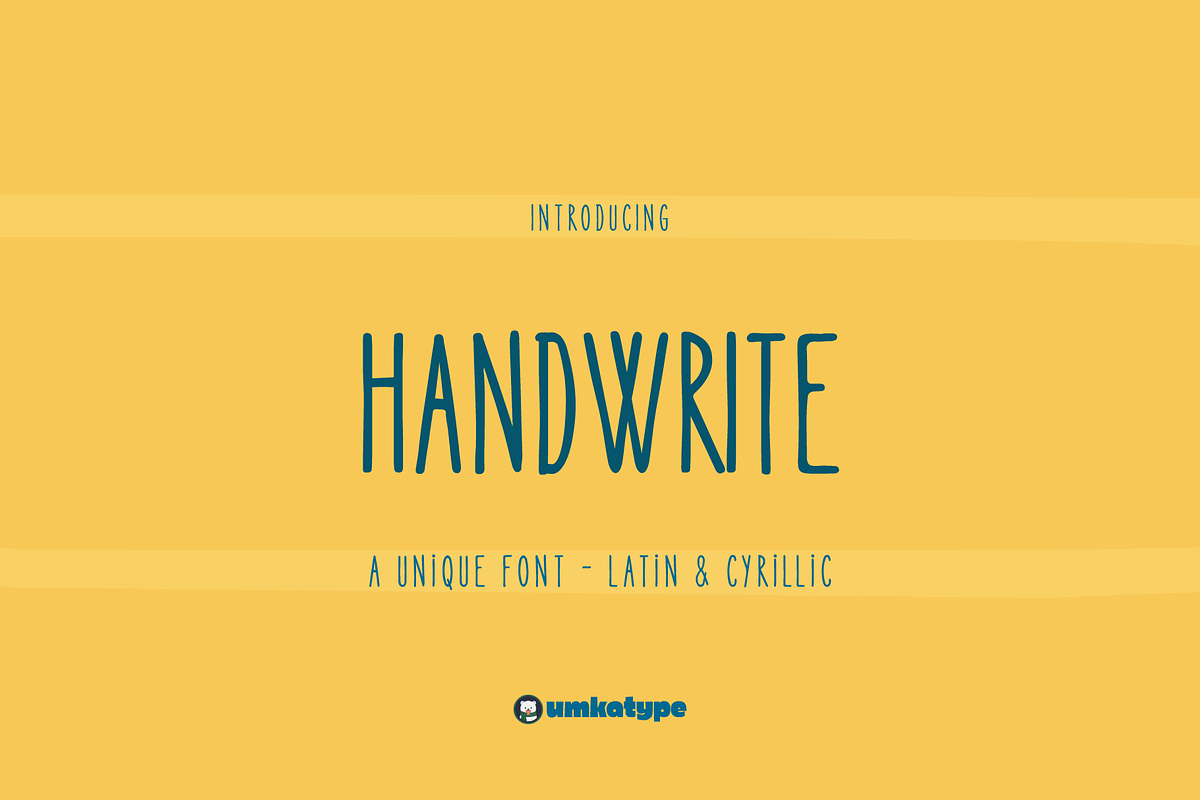
Bring a natural and personal touch to your designs with Handwrite Display Font Free Download. This casual, handwritten-style typeface is perfect for greeting cards, logos, quote graphics, children’s books, social media posts, and any creative project that needs a warm, expressive vibe.
With playful curves and organic letterforms, this font captures the charm of real handwriting while remaining clean and easy to read. It includes uppercase and lowercase letters, numerals, punctuation, and ligatures—ideal for testing out layouts that feel genuine and approachable.